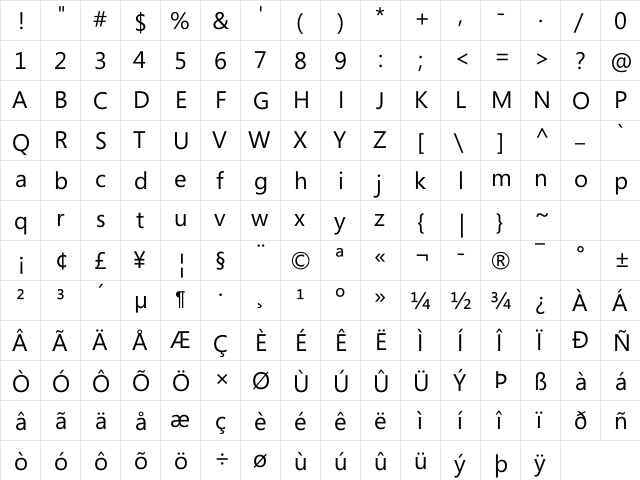
Segoe Media Center Regular
| Foundry | Agfa Monotype Corporation |
Design Context for Segoe Media Center Typeface
Segoe Media Center offers clean, dependable letterforms without strong stylistic allegiance, making it a practical choice for designers who need flexibility.
Pro Tip: Use Segoe Media Center in both headline and body roles to test its range before committing to a single application.